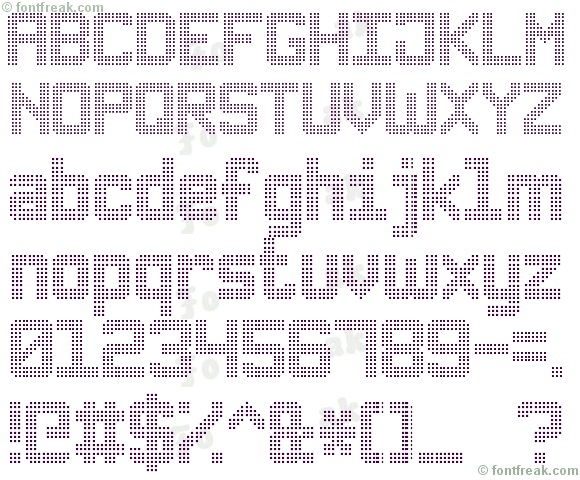
Triple Dot Digital-7
Triple Dot Digital-7, created by Style-7, is a unique display font that falls under the decorative category. Characterized by its pixelated, grid-like structure, this font offers a modern, digital aesthetic that resonates with tech-savvy audiences. The design features a consistent stroke weight that maintains uniformity across its characters, while the spacing is meticulously crafted to ensure clarity and readability, even at smaller sizes. The dot motif adds a playful yet sophisticated charm, making it visually distinctive and engaging.
This font is particularly well-suited for a variety of creative projects. It excels in digital and tech-related designs, making it an excellent choice for website headers, app interfaces, and promotional materials for tech products. Additionally, its unique style lends itself well to event flyers, particularly for gaming competitions or electronic music events, where a modern vibe is essential. Furthermore, it can be effectively utilized in branding for startups and small businesses in the technology sector, where standing out is crucial. Graphic designers and content creators will find Triple Dot Digital-7 font free download a valuable addition to their design toolkit, providing versatility and flair.
The target audience for this font includes graphic designers, small business owners, and content creators who are looking to infuse their projects with a contemporary and digital edge. The distinct visual style of Triple Dot Digital-7 not only captures attention but also communicates a sense of innovation and creativity. This font stands out due to its ability to blend modernity with playfulness, making it an ideal choice for anyone seeking to make a bold visual statement in their designs. Whether for personal or professional use, Triple Dot Digital-7 is sure to enhance any creative endeavor.